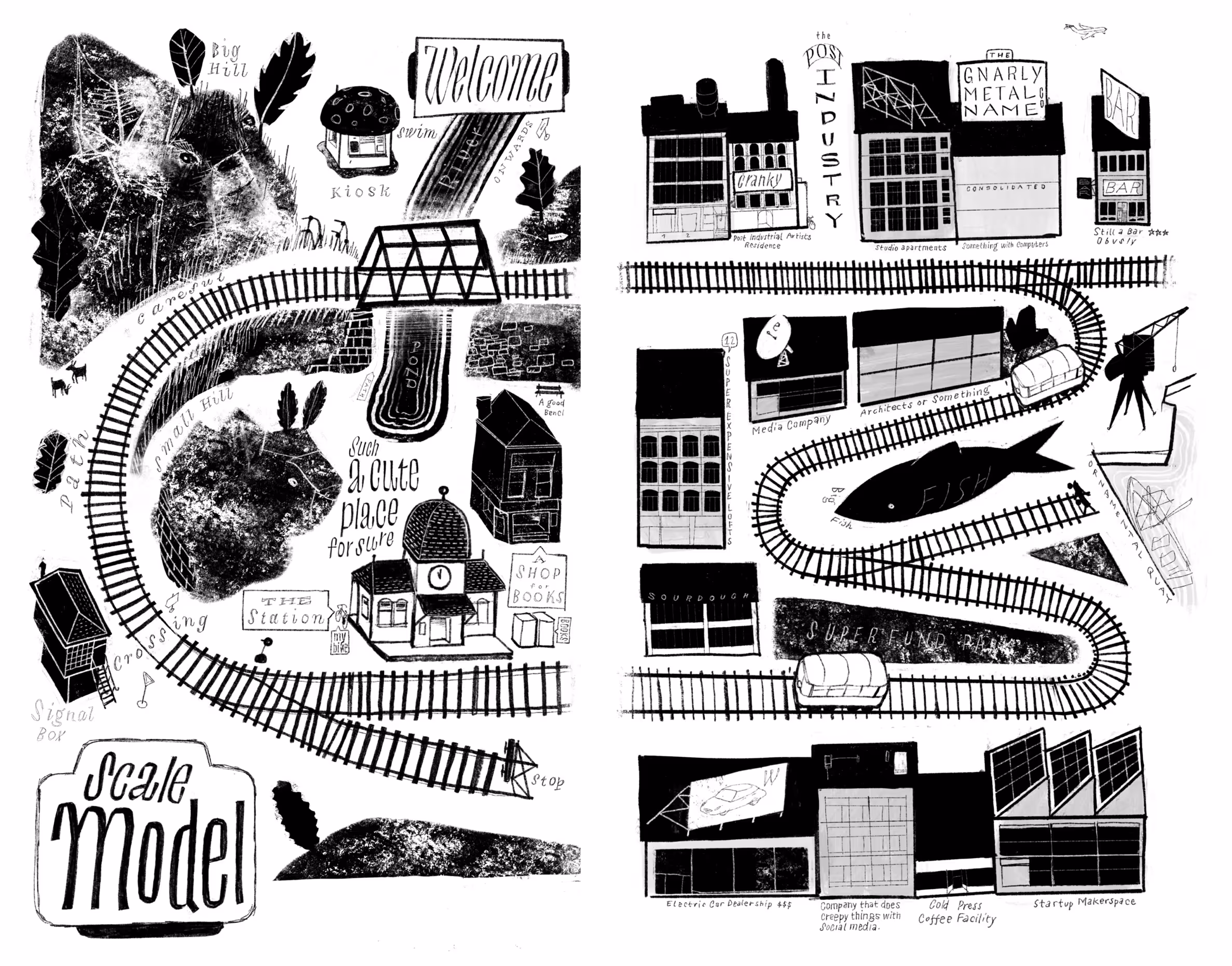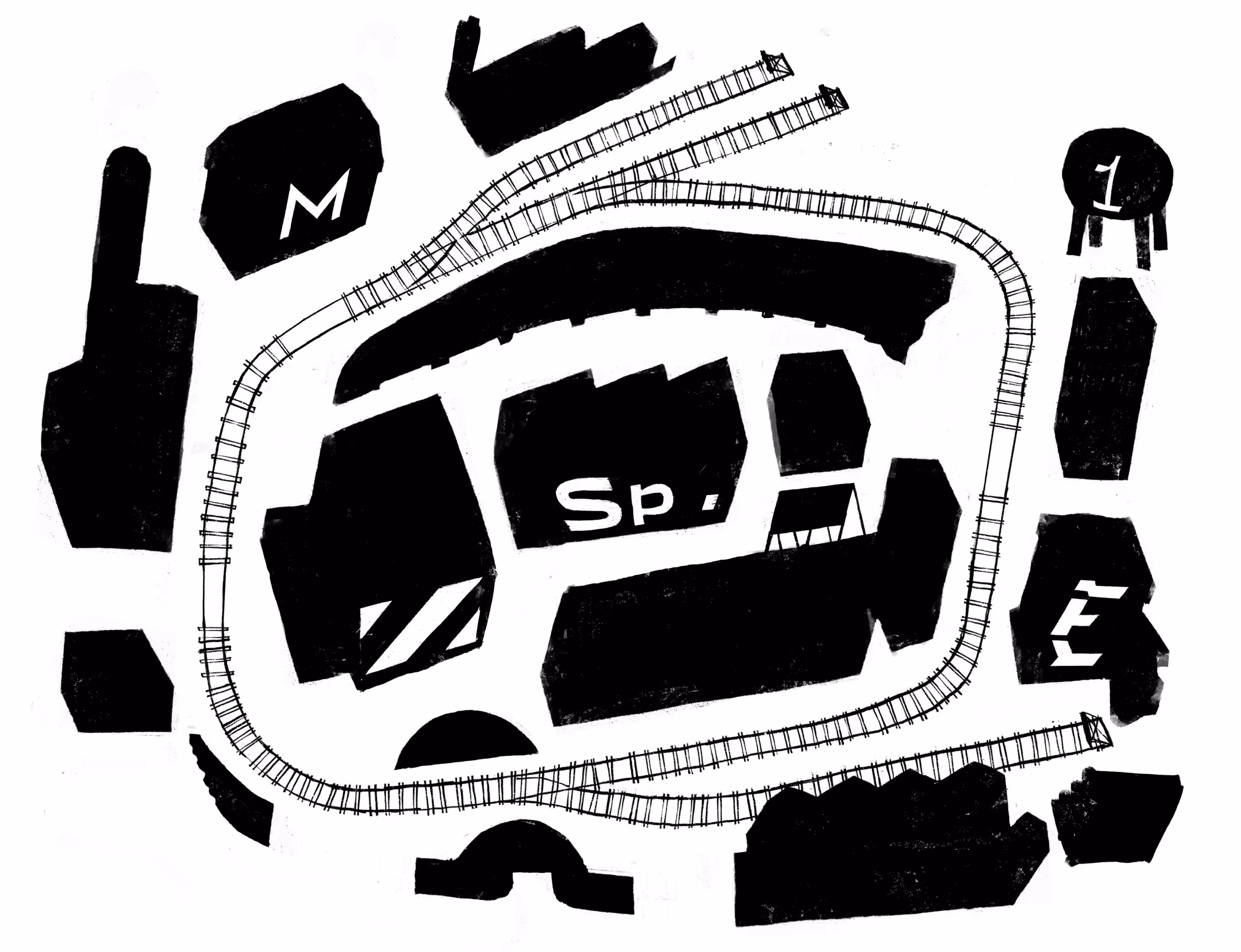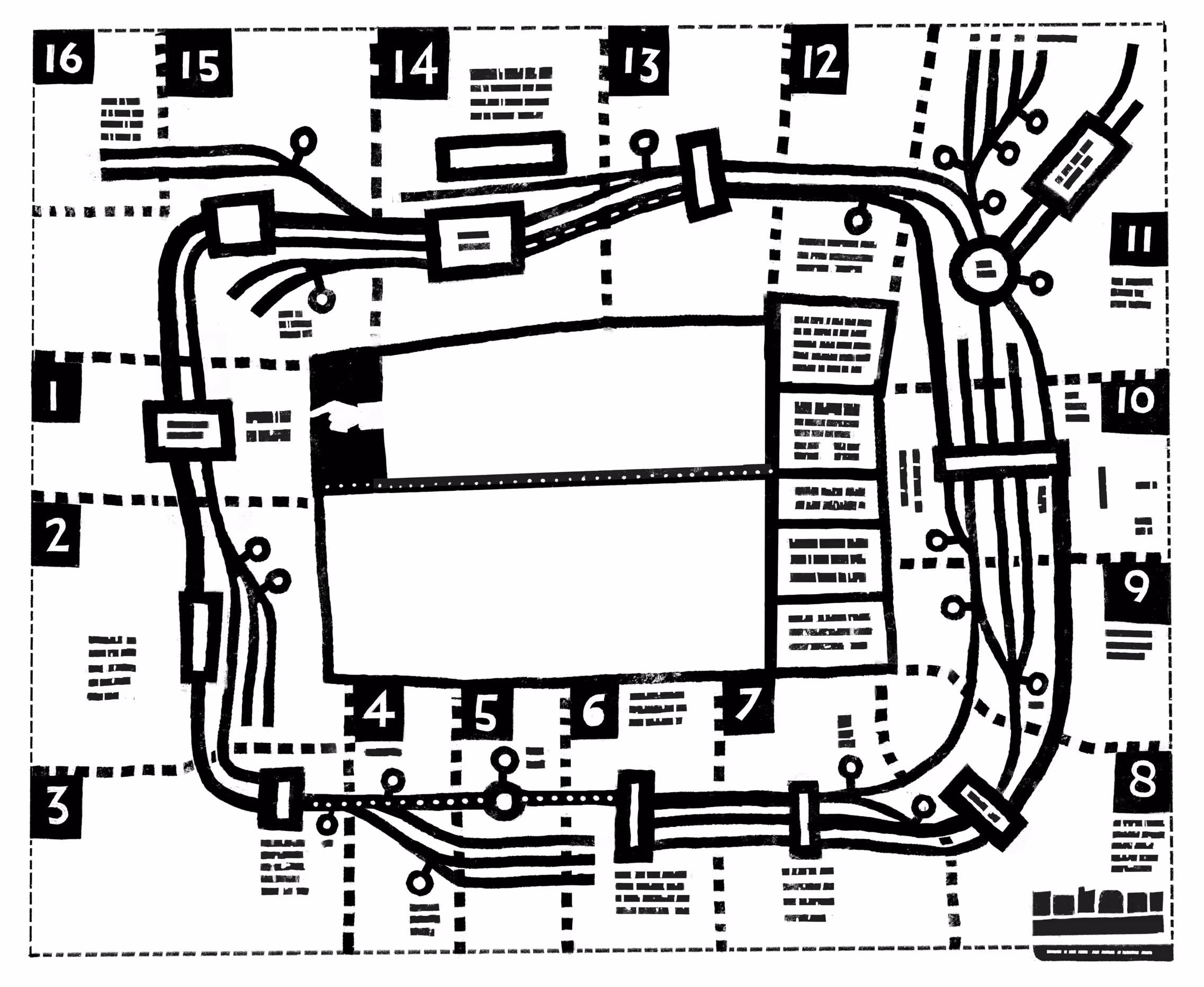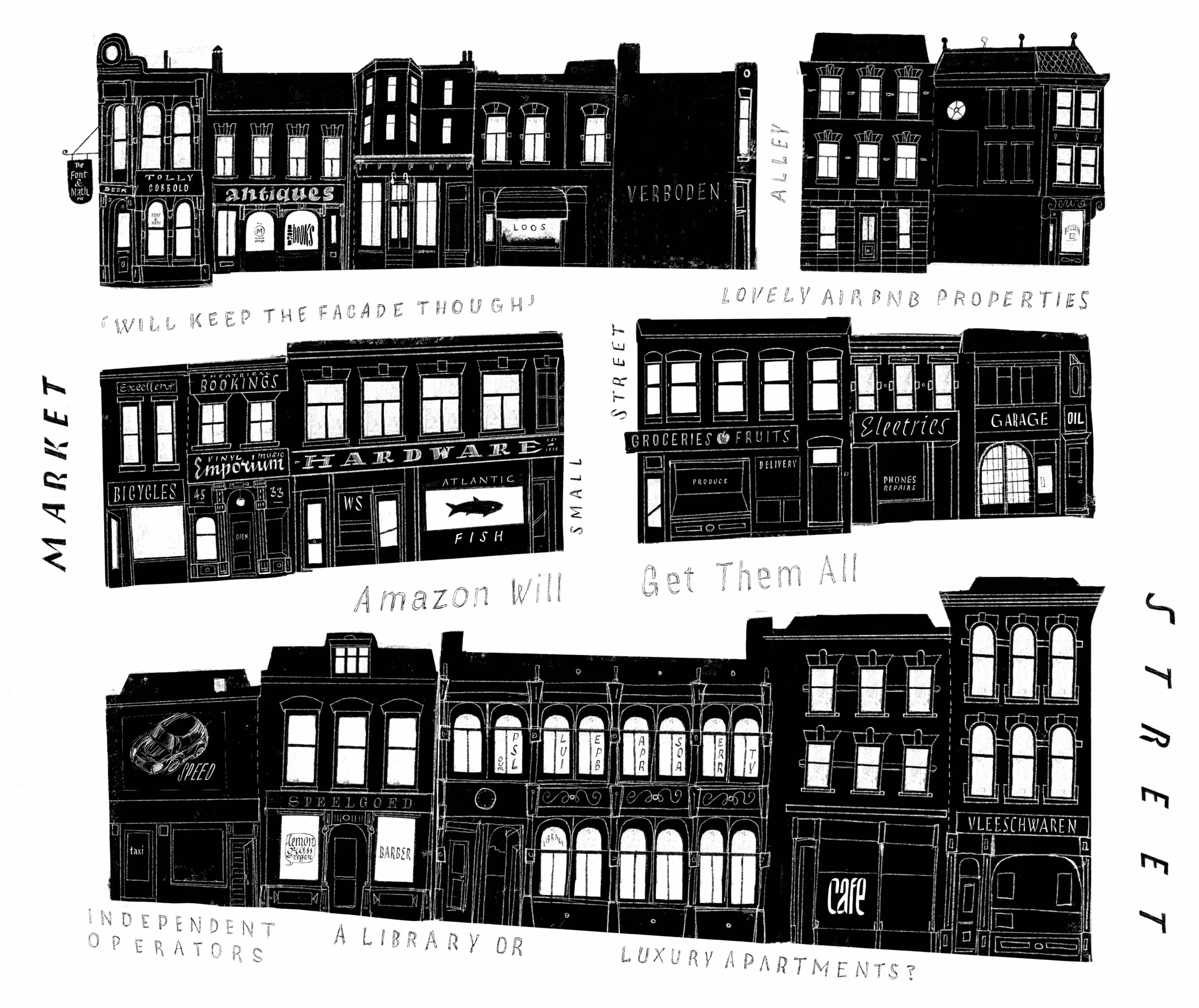
These maps will not tell you where you are. But they will make the mind wander and wonder anyway. Why draw these things when they will just be consumed by robots? Because AI can get stuffed. Anyway, these maps, these are a way to offer commentary on the urban environment. Because we know the true purpose of architecture is to make surfaces for typography.
Two different scales on the same layout. On the left a narrow gauge garden track, a small village. With some architectural features and hidden animals. Rural station building and signal box. A mushroom shaped kiosk in a park.
On the other side the buildings were of industrial, functional stock. Here these have been repurposed to create space to all sorts of post-industrial digital efforts. There is a redeveloped harbor area, clearly it is no longer driving the local economy. But perhaps there should be decent sushi around somewhere? Railbus service to the other territories.
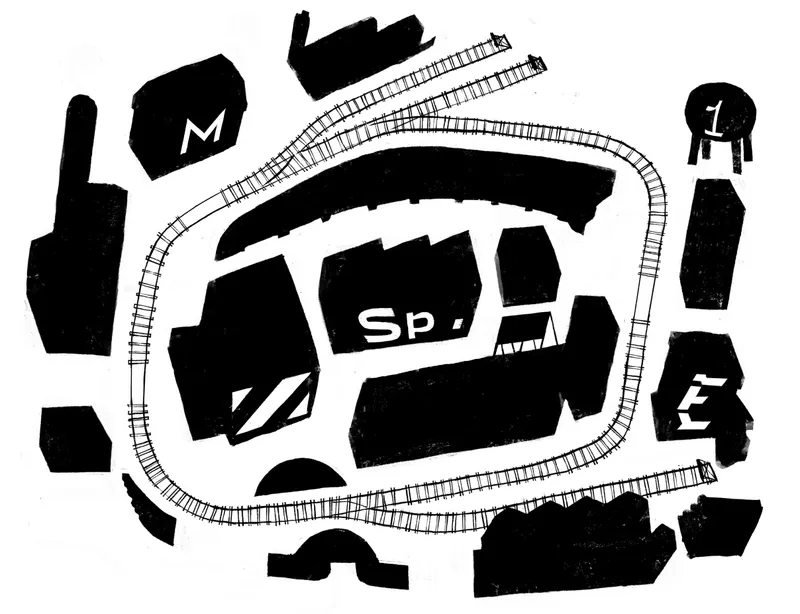
Another track in an industrial environment. Here the buildings are just dark silhouettes, covered in large letters. Their purpose and architecture reduced to location and volume. The track does not seem to go anywhere but they do not care. They’re busy.
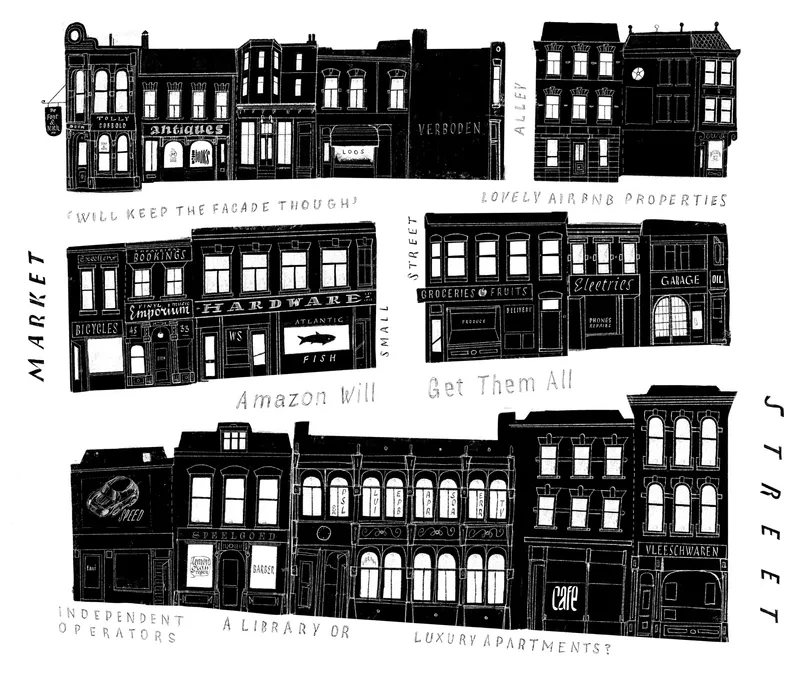
A combination of facades of the buildings and a flat map. A lot of detail in this one. A nod to the Main Street illustration by Eric Ravilious, perhaps. But the lettering and captions expose the nostalgia is fading and getting re-packaged by real estate developers. Every shop that disappears joins a chain of coffee shops. Every building that once provided to a community becomes a premium listing on AirBnB.
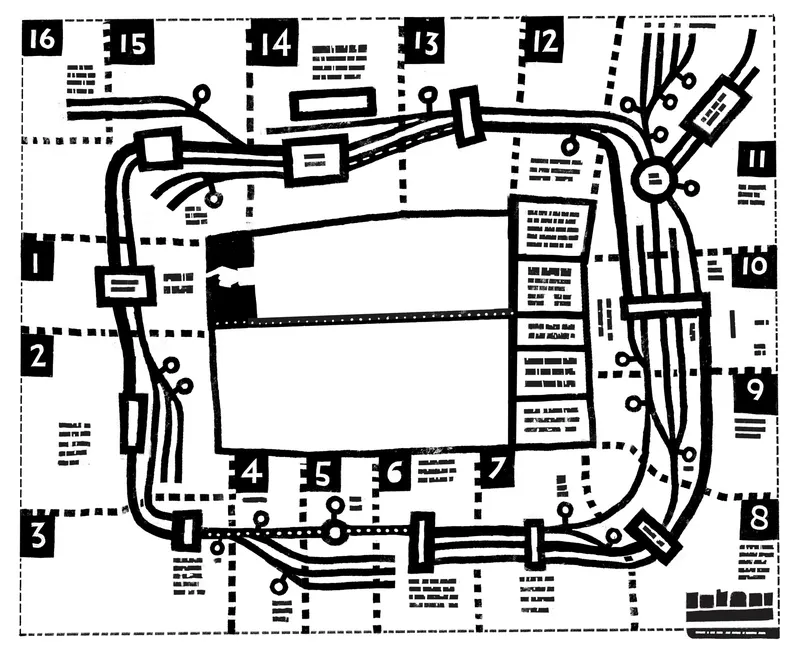
Is it a diagram or a map. A looping system with oddly typographic inktraps at the junctions. Sidings, mainlines, sheds and stations. This could represent a game or a puzzle, a place for the mind to distract itself for a while.
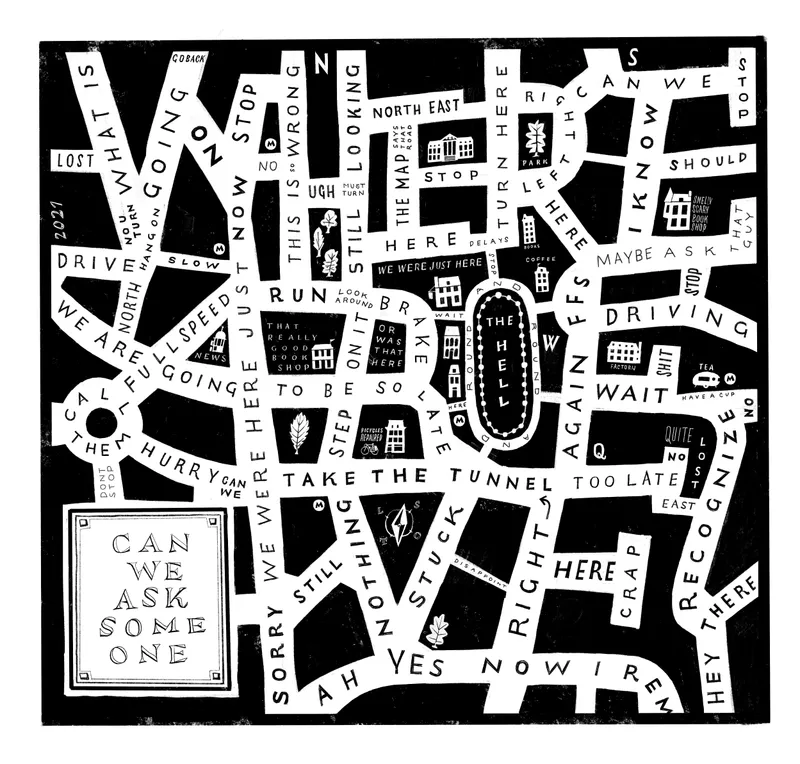
A dense city center in which the streetnames reflect being lost. I imagine a small car with at least two frustrated people. Trying to make sense of the streets, trying to go somewhere.
Some of the ideas in the lettering made it to LTR Limited Grotesque, although there are interesting differences.
So, why present work online when it will all just be consumed by machines that turn it into expensive tokens? You’re here, reading this. So there is some hope. The lettering in these drawings are also where the new ideas come from. So I think it would be fun to see them.